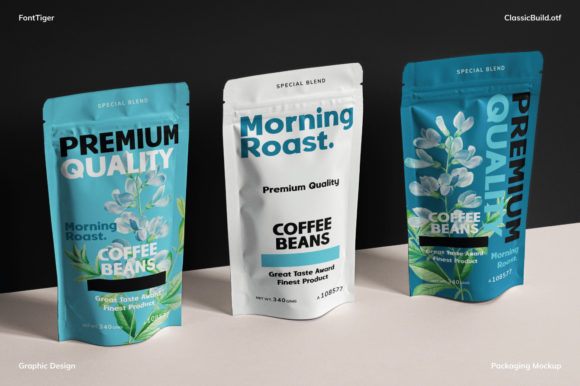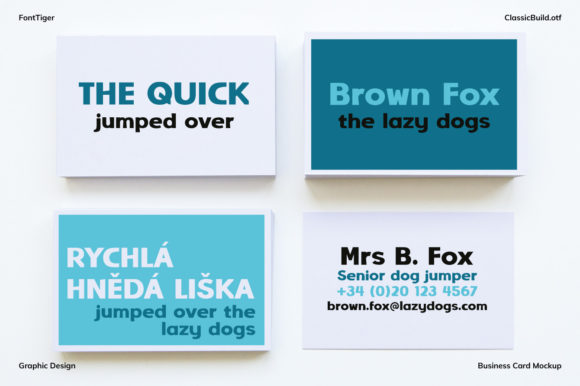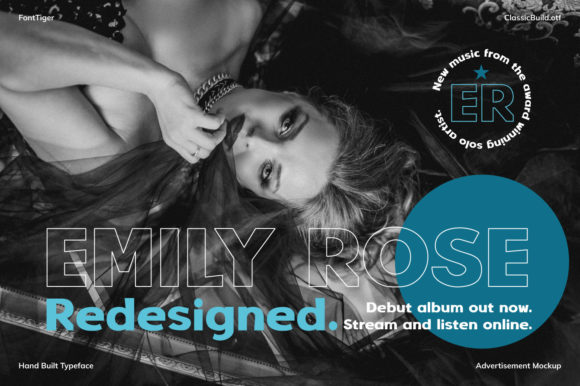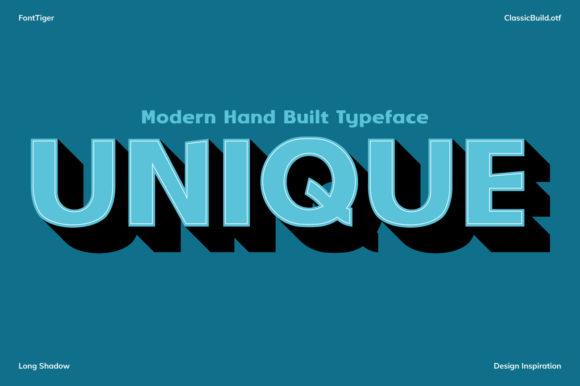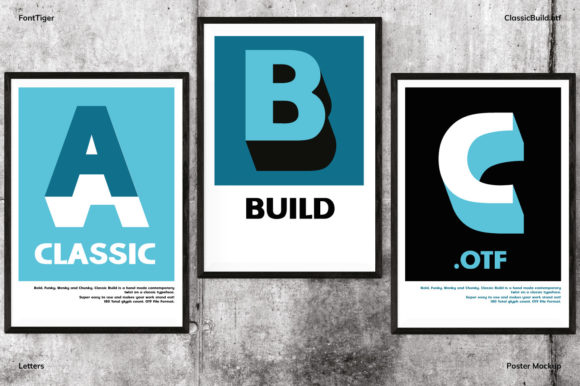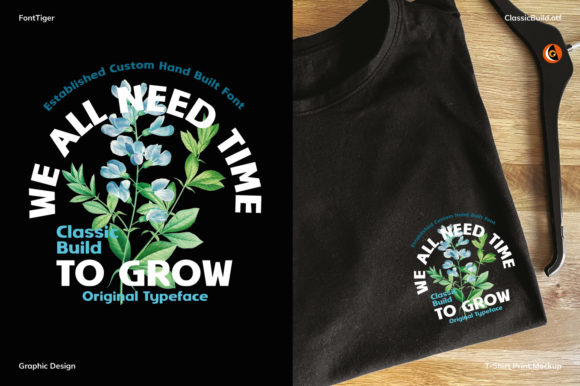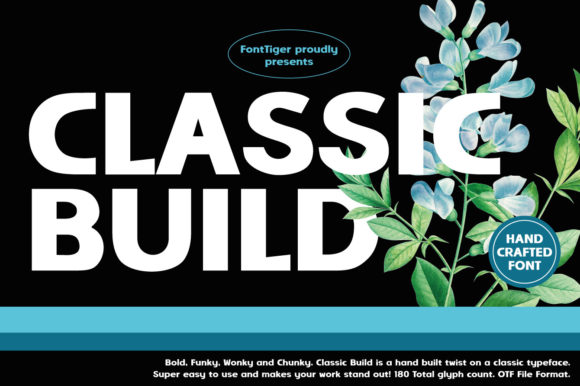
Introducing Classic Build Font: The Ultimate Display Font for Bold Designs
Are you looking for a font that exudes confidence and sophistication? Look no further than Classic Build Font, a cool, thick lettered, and assertive display font that’s perfect for making a statement. With its robust and bold design, Classic Build Font is ideal for a wide range of projects, from blog posts and logos to branding, ads, invitations, greeting cards, planners, photo albums, decorations, and much more.
The Versatility of Classic Build Font
One of the standout features of Classic Build Font is its versatility. This font is designed to be used across various platforms and mediums, making it a valuable addition to any designer’s toolkit. Whether you’re working on a digital project, such as a website or social media graphic, or a physical project, like a logo or brochure, Classic Build Font is sure to make a lasting impression.
Key Features of Classic Build Font
- Cool and Assertive Design: Classic Build Font boasts a unique and eye-catching design that’s sure to grab attention.
- Thick Lettering: The font’s thick lettering gives it a bold and confident look that’s perfect for making a statement.
- Highly Readable: Despite its bold design, Classic Build Font is highly readable, even at smaller sizes.
- Easy to Use: This font is incredibly easy to use and can be easily integrated into your design workflow.
Design Ideas with Classic Build Font
Classic Build Font is an incredibly versatile font that can be used in a wide range of design projects. Here are some ideas to get you started:
- Logos and Branding: Use Classic Build Font to create a bold and memorable logo that perfectly represents your brand.
- Blog Posts and Articles: Add a touch of sophistication to your blog posts and articles with Classic Build Font.
- Social Media Graphics: Create eye-catching social media graphics with Classic Build Font that are sure to grab attention.
- Invitations and Greeting Cards: Use Classic Build Font to create beautiful and elegant invitations and greeting cards.
- Planners and Organizers: Add a touch of style to your planners and organizers with Classic Build Font.
Why Choose Classic Build Font?
With so many fonts available, why choose Classic Build Font? Here are just a few reasons why this font stands out from the rest:
- Unique Design: Classic Build Font boasts a unique and eye-catching design that’s sure to make your designs stand out.
- High-Quality: This font is designed to be high-quality and highly readable, making it perfect for a wide range of design projects.
- Easy to Use: Classic Build Font is incredibly easy to use and can be easily integrated into your design workflow.
Classic Build Font is a cool, thick lettered, and assertive display font that’s perfect for making a statement. With its robust and bold design, this font is ideal for a wide range of projects, from blog posts and logos to branding, ads, invitations, greeting cards, planners, photo albums, decorations, and much more. Whether you’re a designer or crafter, Classic Build Font is a valuable addition to your toolkit. So why wait? Download Classic Build Font today and start creating bold and memorable designs!